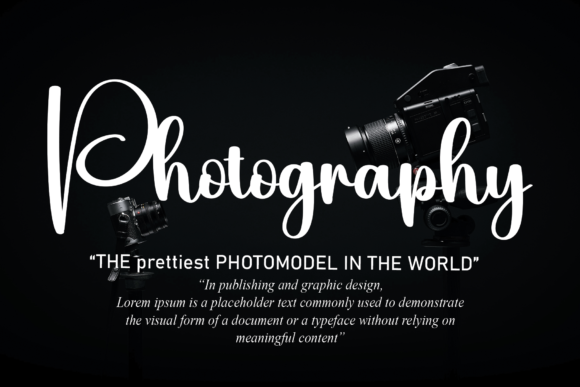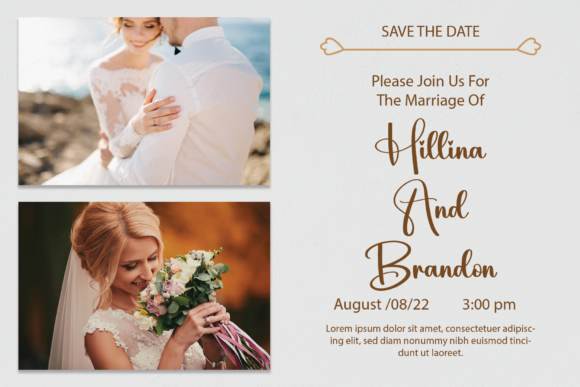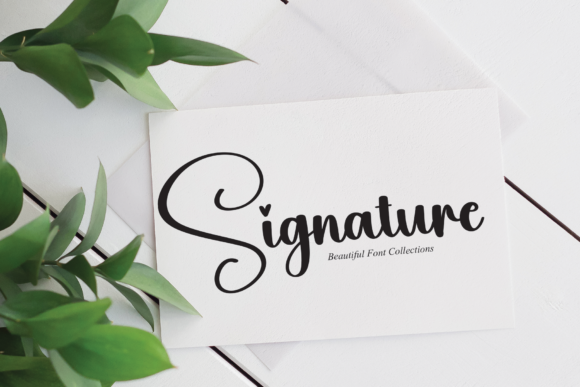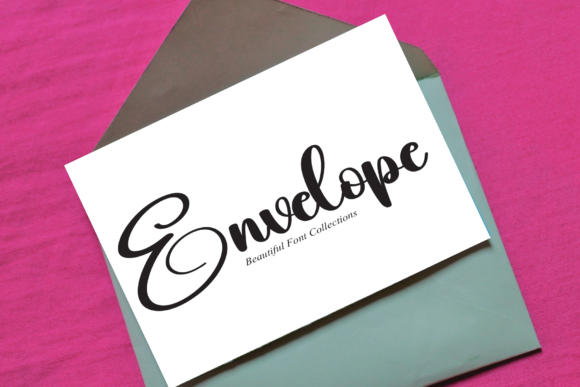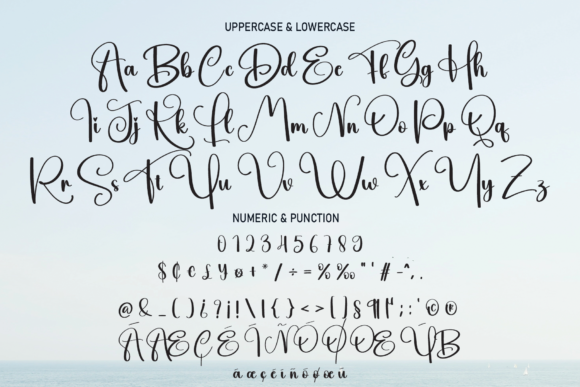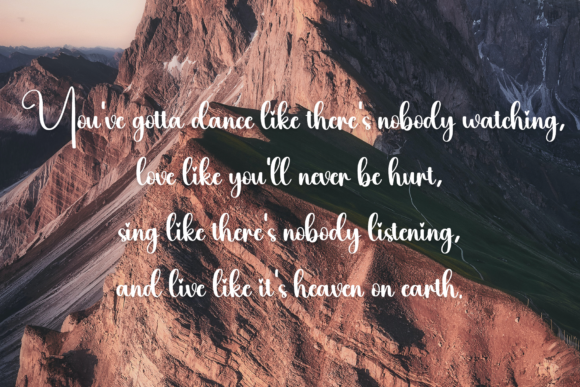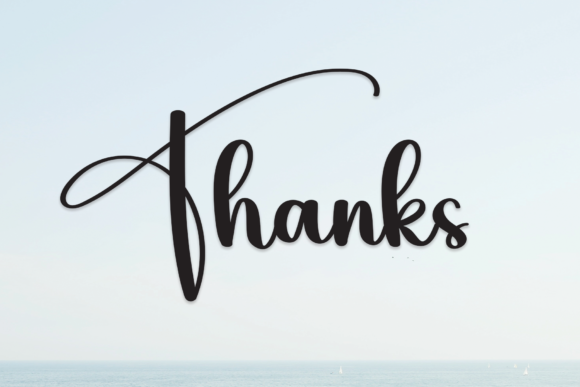
Hey Summer Font
About Hey Summer Font
“Hey Summer” is an exquisite script font designed to evoke a sense of romance and beauty in your projects. With hearts adorning each dot and graceful swashes, this font effortlessly radiates a romantic atmosphere, making it a perfect choice to enhance the visual allure of your designs.
The unique charm of “Hey Summer” shines particularly bright in wedding design. Its elegant script and heart-shaped dots add a touch of whimsy and love, creating a visually stunning and memorable element for wedding invitations, save-the-date cards, and other matrimonial materials. The font’s romantic undertones are well-suited to capture the essence of love and celebration on such special occasions.
Logos take on a distinctive and charming quality when crafted with “Hey Summer.” The script font’s graceful curves and unique details make it an ideal choice for businesses and brands that wish to convey a warm and inviting image. Whether it’s a boutique, a wedding planning service, or any enterprise aiming for a touch of romance, “Hey Summer” adds a personalized and elegant touch to logo designs.
Invitations come to life with the romantic feel of “Hey Summer.” Whether it’s for a formal event or a casual gathering, the font’s script style and heart accents elevate invitation designs, making them more visually appealing and engaging. The font’s versatility ensures it complements a variety of themes, adding a touch of sophistication to your invitation suite.
Social media posts become eye-catching and enchanting when adorned with the unique elements of “Hey Summer.” Whether you’re sharing heartfelt messages, quotes, or announcements, the font’s romantic script injects a sense of charm and personality into your digital presence. Stand out in the social media landscape with this font’s distinctive and captivating style.
The versatility of “Hey Summer” extends to a wide range of applications beyond weddings and social media. Its romantic script is suitable for diverse design projects, including stationery, posters, greeting cards, and more. Infuse a romantic and elegant touch into your creations, and let the unique details of this font enhance the overall aesthetic.
In summary, “Hey Summer” is more than just a font – it’s a romantic statement. With heart-adorned dots and graceful swashes, it brings a touch of love and charm to your designs. Whether you’re working on wedding materials, logos, invitations, social media posts, or various other applications, let “Hey Summer” be the romantic muse that elevates your creative projects to new heights.